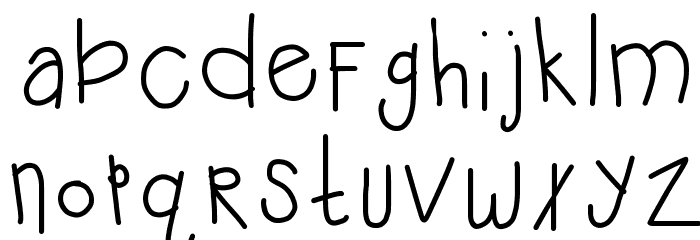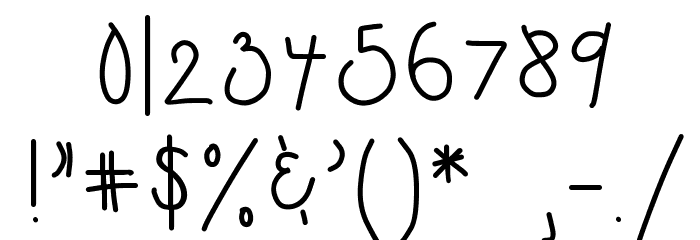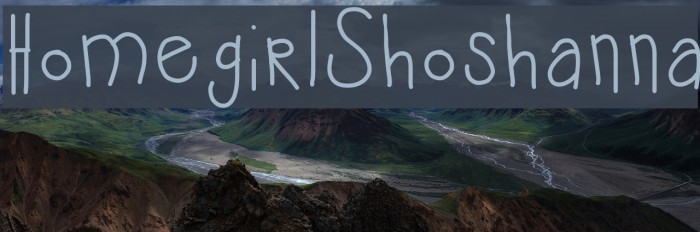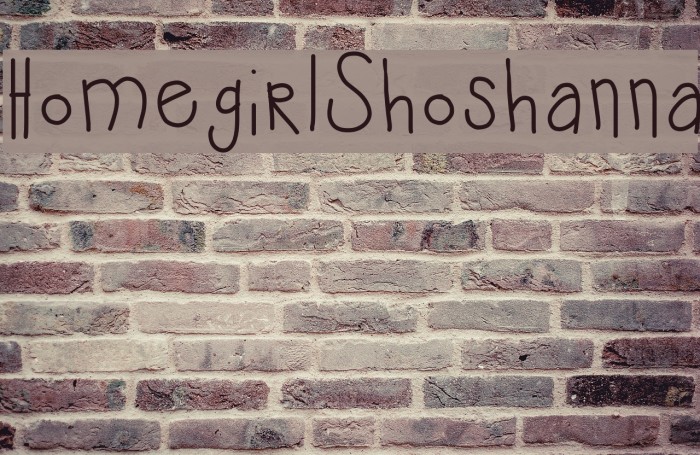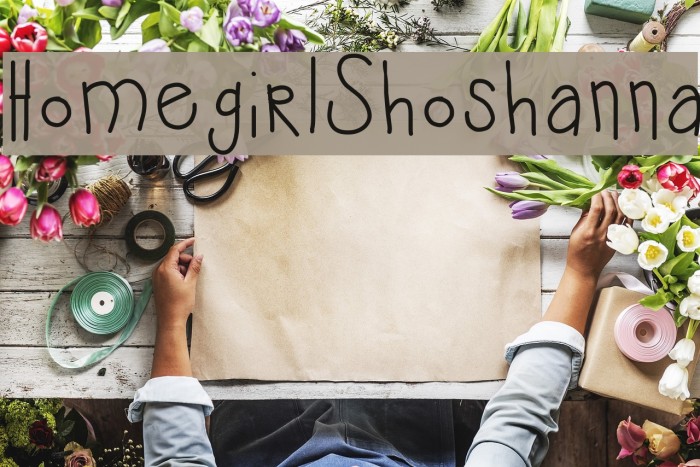
HomegirlShoshanna Font
This font features a playful and casual handwritten style, characterized by its irregular strokes and whimsical appearance. The uppercase letters are tall and slightly narrow, with a quirky, uneven baseline that adds to its charm. The lowercase letters maintain a consistent style, with rounded forms and a friendly demeanor. Numbers are crafted with the same playful touch, ensuring a cohesive look throughout. Special characters are included, each designed to match the font's overall aesthetic. This font exudes a sense of fun and creativity, making it ideal for projects that require a personal and informal touch.
A playful, handwritten font with a casual and whimsical style.
- Proposed Projects: Ideal for greeting cards, children's books, playful branding, and informal invitations.
- Overall Style: Casual, Playful
- Use Case: Headlines, Informal text, Creative projects